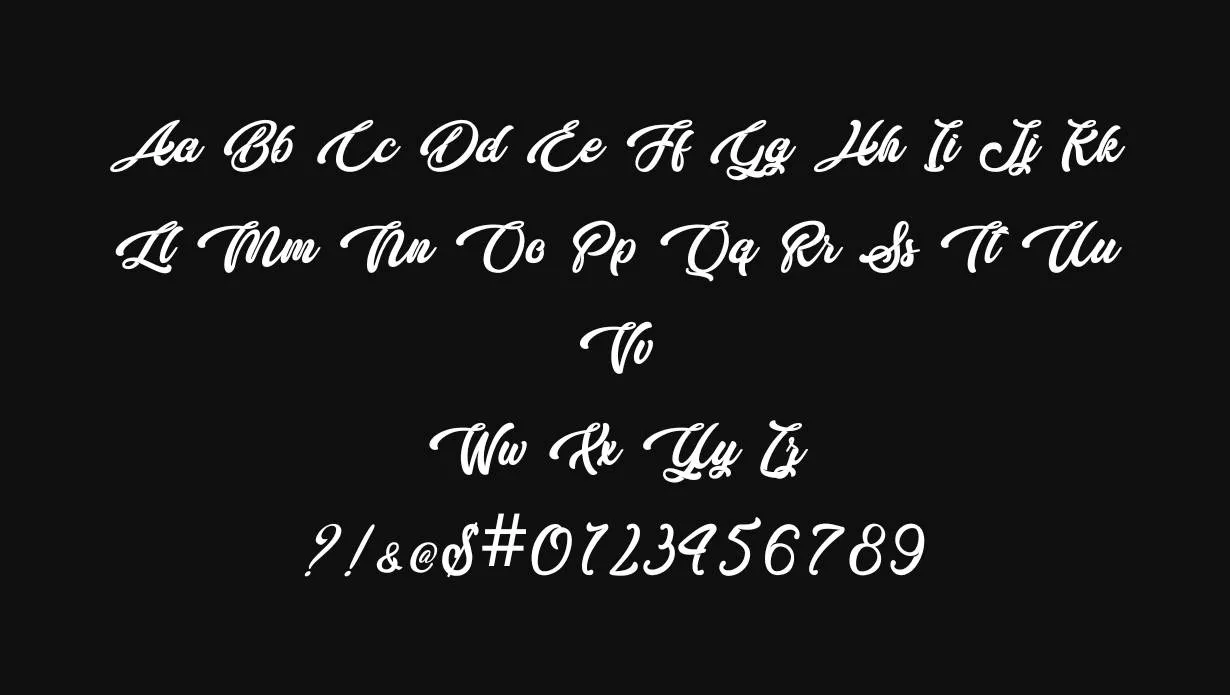
Butterfly Kiss is a very classy handwritten font. It was designed by Suthi Srisopha and manufactured by Typhoon Type. It has a vintage look in its characters which makes it unique and more attractive. It has 215 characters and 180 glyphs. Languages supported Latin and Symbols.
| Name | Butterfly Kiss Font |
| Designer | Suthi Srisopha |